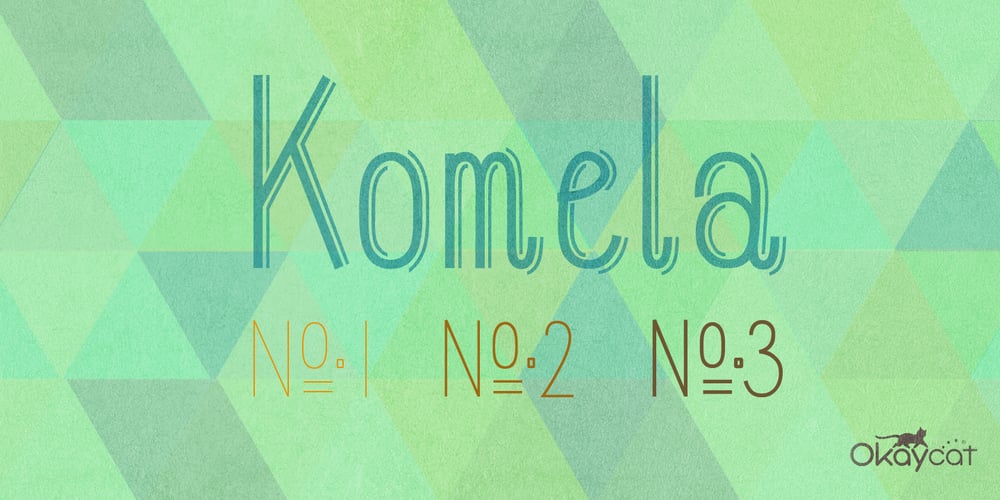
Komela
Komela font
Komela Font Family was designed by Natsuko Hayashida and published by Okaycat. Komela contains 7 styles and family package options. Komela is perfect for a poster or magazine. To be used anywhere that beautiful design plus high functionality is required. Komela is a multilingual font appropriate for publishing to international environments.